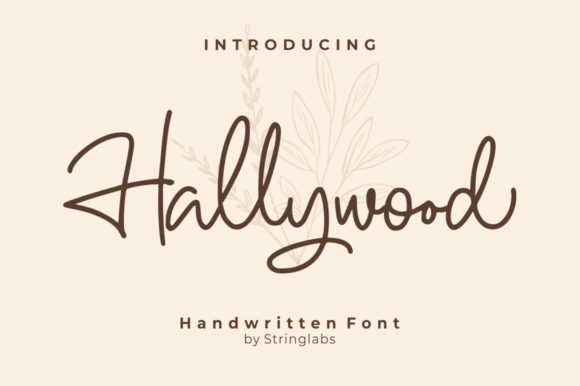
Hallywood Font
Behold, the Hallywood Font - A Stroke of Enchantment, a cascade of elegance flowing through your designs. This exquisitely crafted script font, conjured by the masterminds at StringLabs, will sweep you off your feet. Hallywood is the perfect dance partner for your creative projects, whether you're crafting a brand logo that speaks volumes or a wedding invitation that steals hearts.
Let Hallywood's graceful curves and captivating flow add an unforgettable touch to your branding. This font is an artist's palette, waiting for your imagination to paint upon. Dive into a world of elegance and sophistication, where your designs blossom into visual masterpieces.
Hallywood is not just a font; it's an experience. Its delicate lines evoke a sense of timeless beauty, a harmony between the classic and the contemporary. This font is a symphony of creativity, a melody of style that will elevate your designs to new heights.
With Hallywood, you're not merely creating designs; you're crafting memories. This font has a life of its own, a story to tell in every word it adorns. Whether it's a marketing campaign that demands attention or a personal project that speaks to your soul, Hallywood will be your faithful companion, transforming your words into works of art.
The beauty of Hallywood extends far beyond static designs. It comes alive in motion graphics, wedding invitations, signatures, and advertising, bringing a dynamic charm to every project. Its versatility is a marvel, a chameleon that effortlessly blends into your vision, enhancing it with a touch of magic.